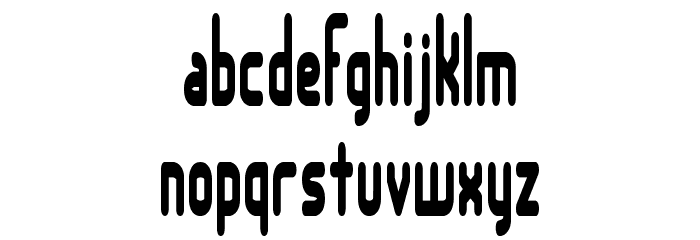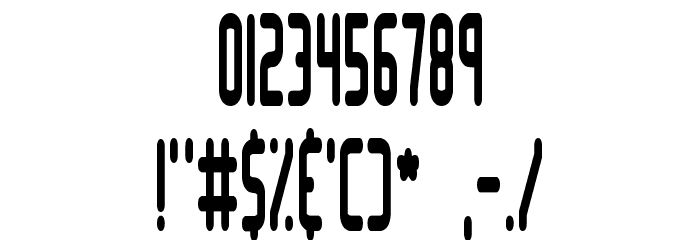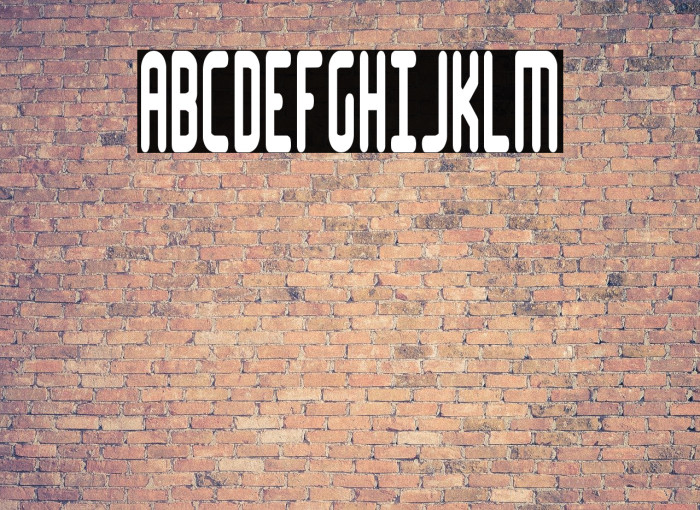
Lakeshore BRK Font
This font features a unique, rounded style with a modern and playful aesthetic. The characters are bold and have a consistent stroke width, giving them a uniform appearance. The rounded edges and slightly condensed form add a friendly and approachable feel. The uppercase and lowercase letters maintain a cohesive look, while the numerals and special characters complement the overall design. The font's distinct style makes it suitable for creative and informal projects.
A modern, rounded font with a playful and bold style.